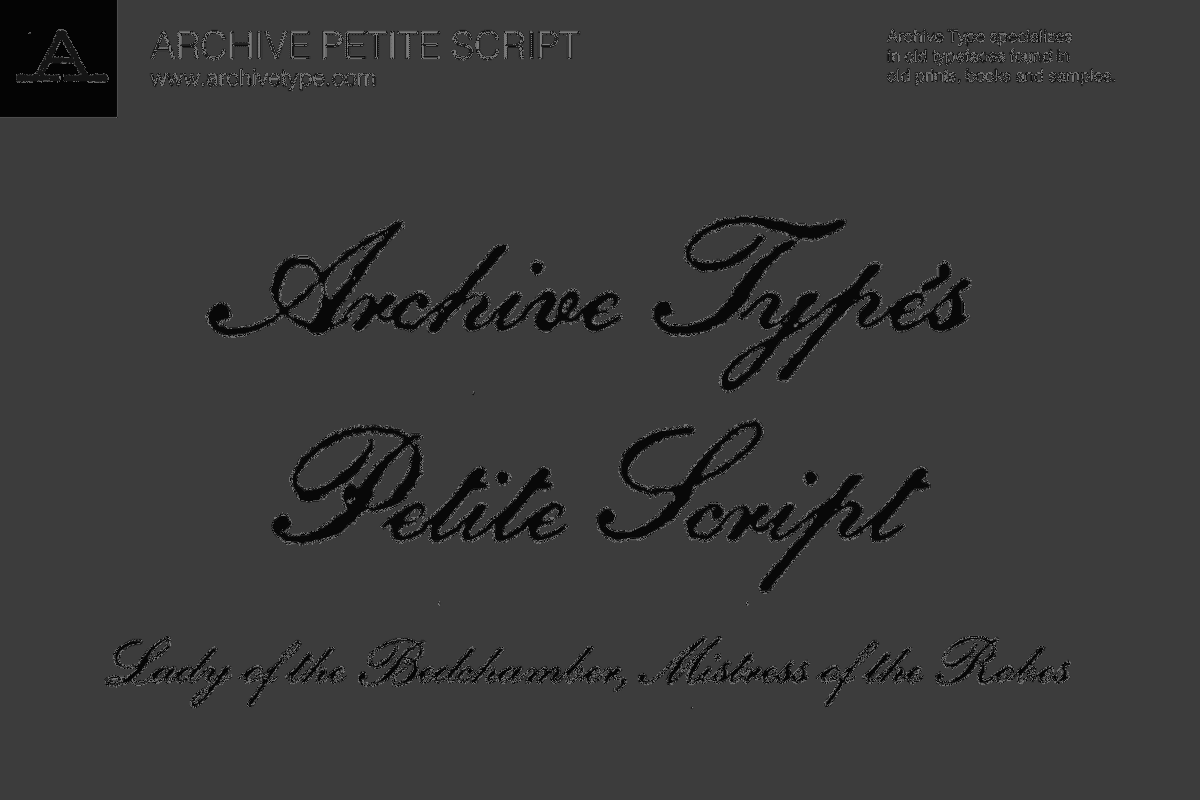
Archive Petite Script Free Download is a delicate and refined handwritten typeface that captures the charm of vintage penmanship. Ideal for branding, invitations, editorial designs, and nostalgic packaging, this script font brings elegance and subtle character to every project. Please note that you must purchase this font for commercial use, but it is available as a free download for testing purposes. Add timeless beauty to your typography with Archive Petite Script Free Download, and enjoy the graceful rhythm of hand-drawn lettering in your creative work.